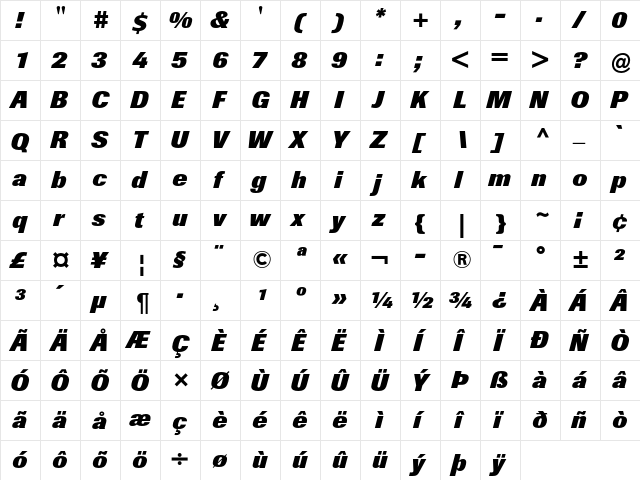
Berthold Imago Extra Bold Italic Font Preview
Design Context for Berthold Imago Typeface
Berthold Imago takes a measured approach to typography — its balanced proportions and neutral character make it a reliable workhorse for both digital and print work. The slanted form adds forward momentum and visual energy. The heavy weight commands attention and anchors typographic hierarchies.
Pro Tip: Try Berthold Imago for annotation and caption copy alongside an upright companion — the contrast in angle creates a dynamic but ordered typographic system.